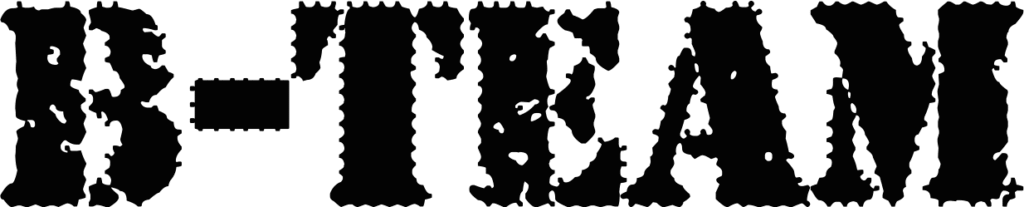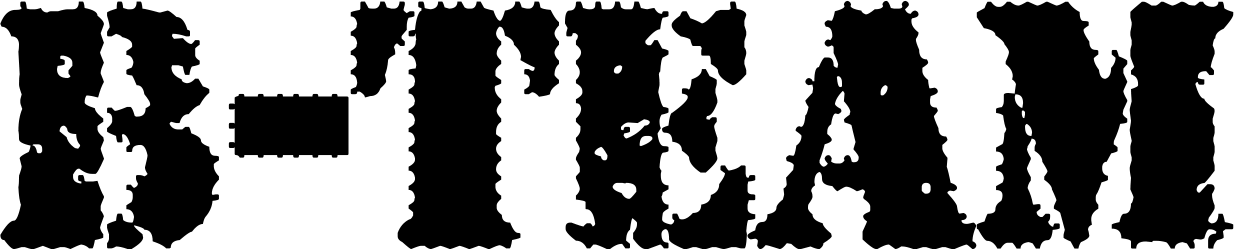
B-Team Font
B Team font has a grunge, stencil, and vintage font styles for your designs. Bold letters in this distressed stencil font can increase the power and competence of your design. There are no small characters in this title…
B Team font has a grunge, stencil, and vintage font styles for your designs. Bold letters in this distressed stencil font can increase the power and competence of your design.
There are no small characters in this title font, but if you are one of those people who need big titles and standard numbers, this font can be used to design flyers and police action movie posters. If you are still looking for a perfect style, you can use it for military designs.
B-TEAM